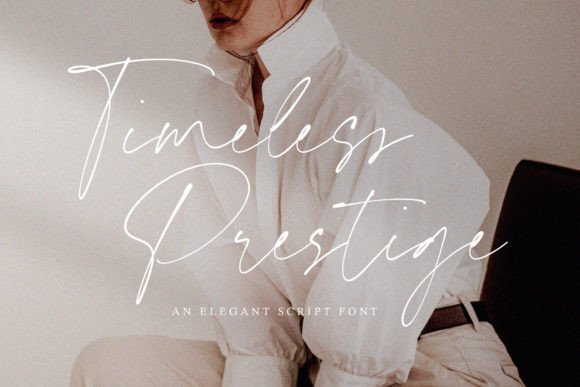
Unleash the Timeless Charm: Timeless Prestige Font - Your Gateway to Exquisite Designs
Journey into the realm of exquisite typography with Timeless Prestige Font, a handcrafted masterpiece that captures the essence of elegance and sophistication. This stunning script font, brought to life by the talented Timur Type, is more than just a collection of letters; it's an artistic expression that will elevate your designs to new heights.
With its delicate strokes and graceful curves, Timeless Prestige Font exudes a charm that is both timeless and contemporary. Each letter is meticulously crafted to maintain a perfect balance, creating a visual harmony that is a feast for the eyes. As you glide through the alphabet, you'll discover a symphony of shapes that intertwine seamlessly, like a dance of ink on paper.
The versatility of Timeless Prestige Font is truly remarkable. Whether you're a seasoned designer seeking to create breathtaking logos, invitations, or social media graphics, or a novice just starting your creative journey, this font will be your trusted companion. Its adaptability shines through in its ability to complement a wide range of design aesthetics, from classic to modern and everything in between.
With Timeless Prestige Font as your creative ally, you'll find yourself drawn into a world of endless possibilities. It's the perfect choice for adding a touch of elegance to wedding invitations, crafting unforgettable branding materials, or creating social media posts that captivate your audience. Let your imagination run wild and explore the boundless potential of this exceptional font.
Don't settle for ordinary fonts that fail to leave a lasting impression. Embrace the allure of Timeless Prestige Font and embark on a creative adventure like never before. As you immerse yourself in its captivating beauty, you'll discover why it's hailed as the "Best Font for Web Design 2015" - a testament to its timeless appeal and enduring charm.